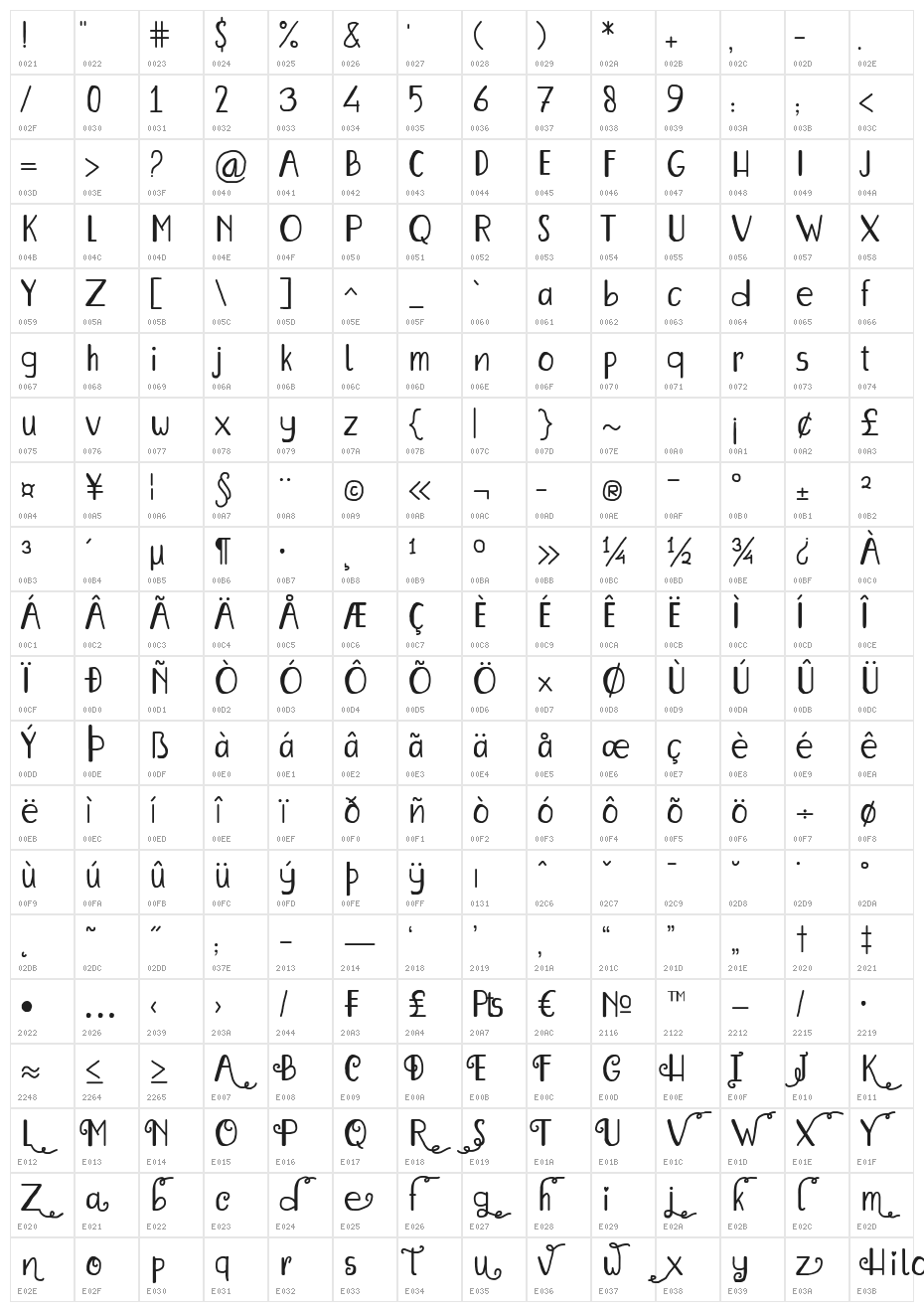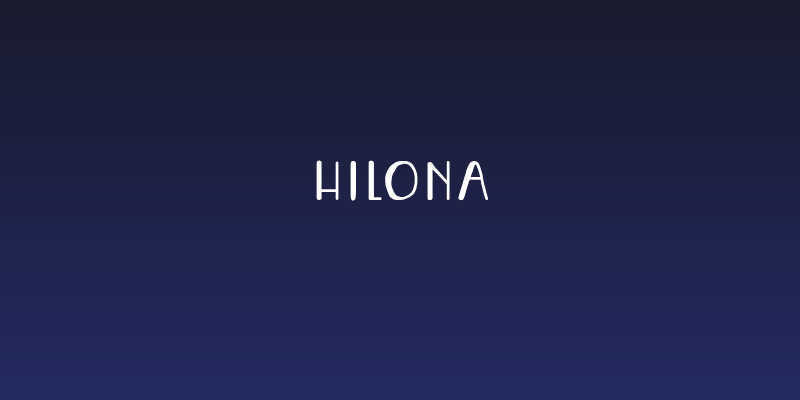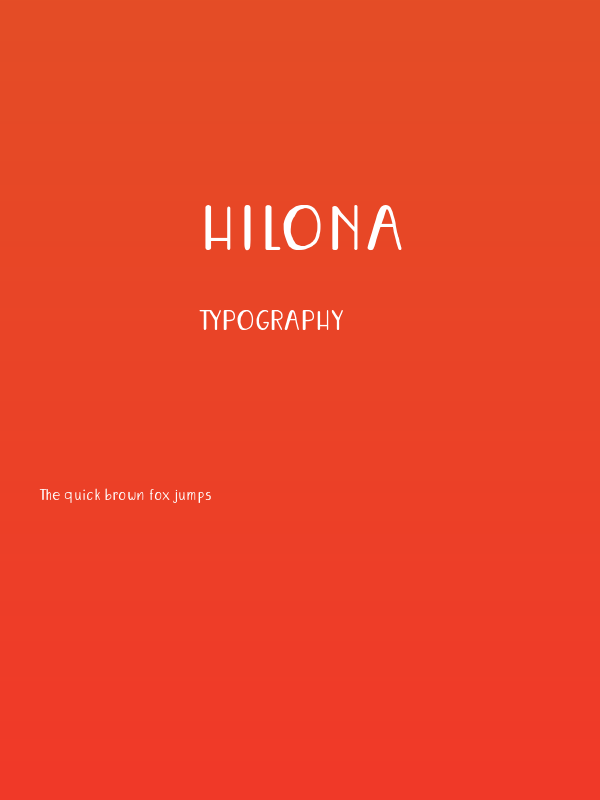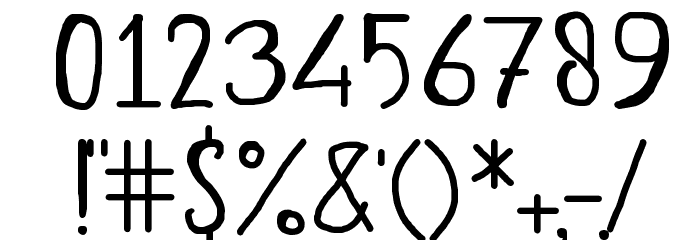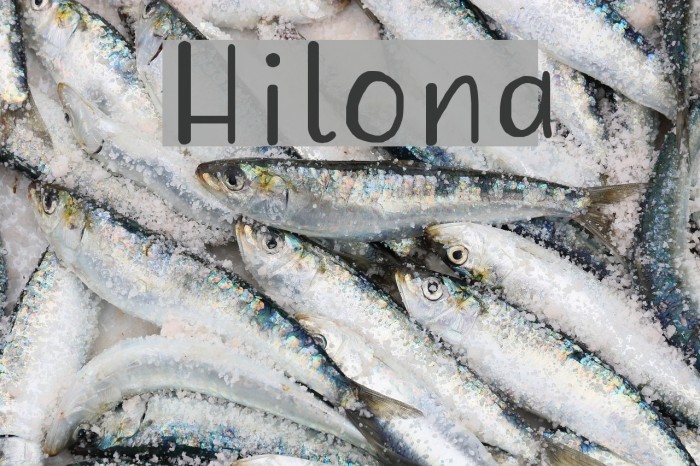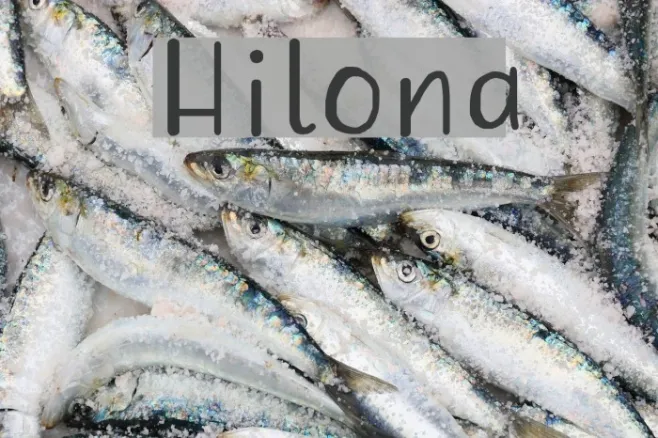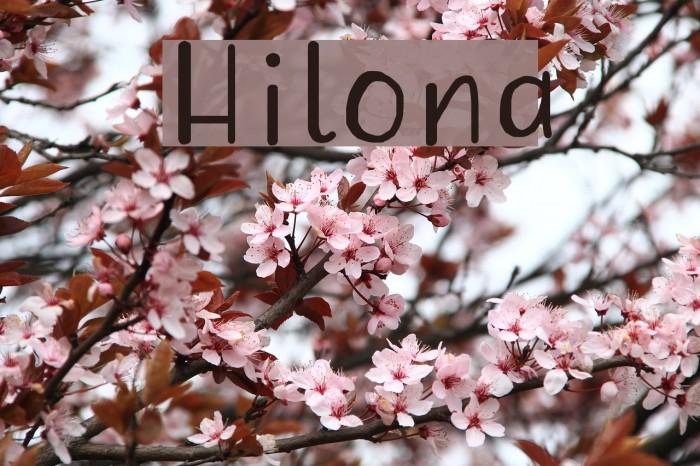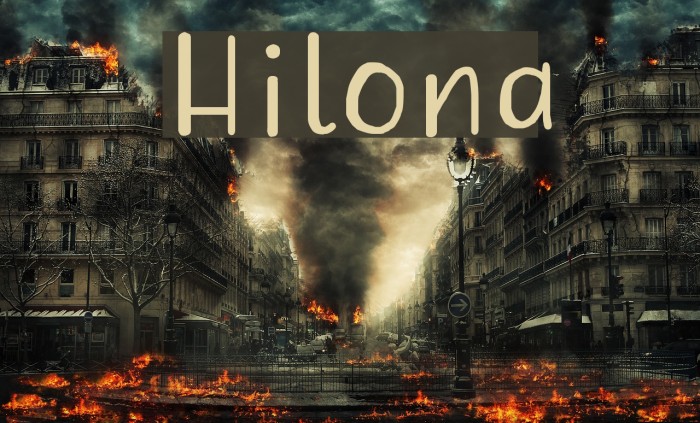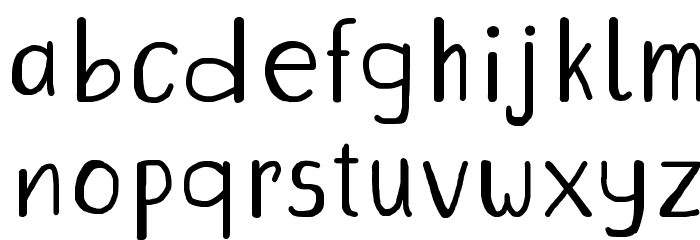
Hilona Font
Hilona Description
This font features a playful and informal style with rounded edges and a handwritten feel. The uppercase letters are slightly taller than the lowercase, maintaining a consistent width throughout. The numerals are distinct and easy to read, with a slight tilt that adds to the casual aesthetic. Special characters are well-integrated, matching the overall style. The strokes are consistent in thickness, providing a uniform appearance that is both approachable and versatile.
| Proposed Projects | Ideal for children's books, casual invitations, greeting cards, and playful branding projects. |